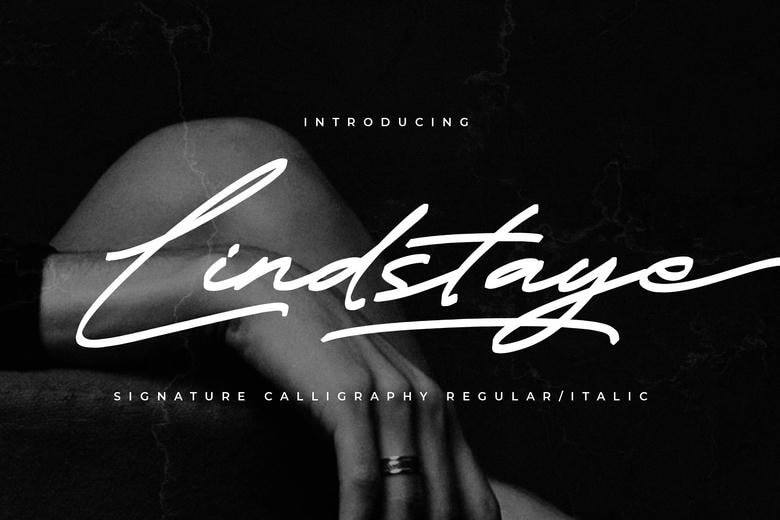
Lindstaye Font
Lindstaye is a very elegant and classic handwritten script. It is the most convenient for creating logo, branding as well as commonly used quotes. Each letter will be distinguishable and exquisite to the eye, which will add character into your designs!
Lindstaye Handwritten Script Font